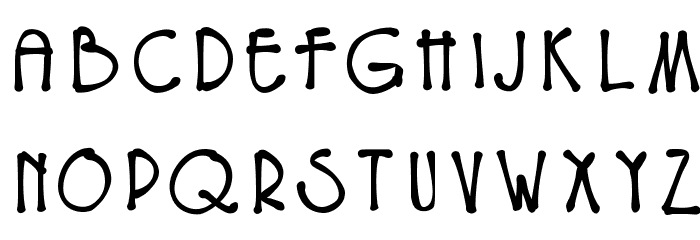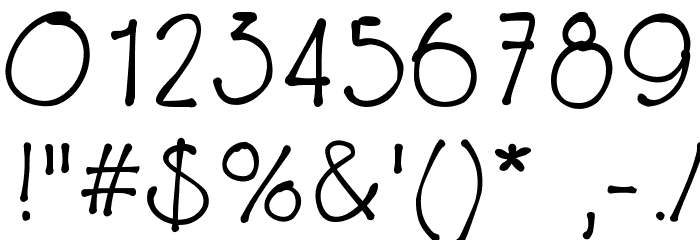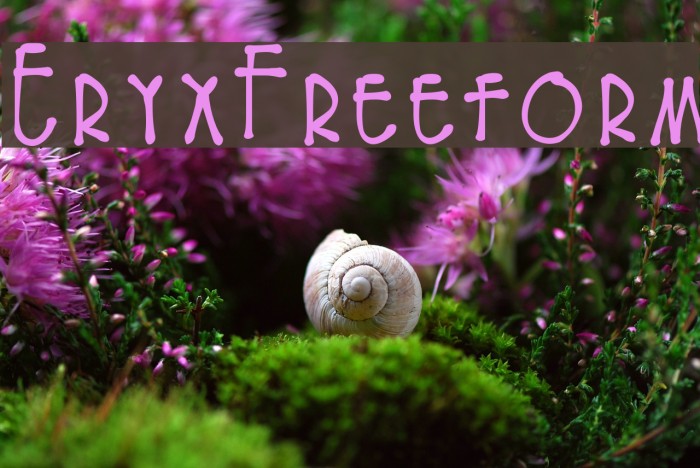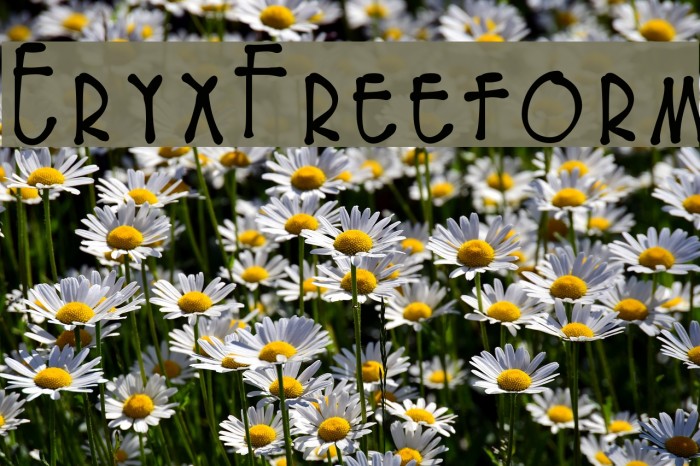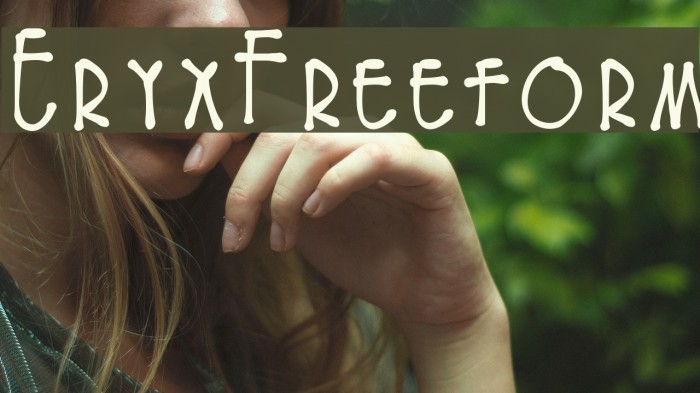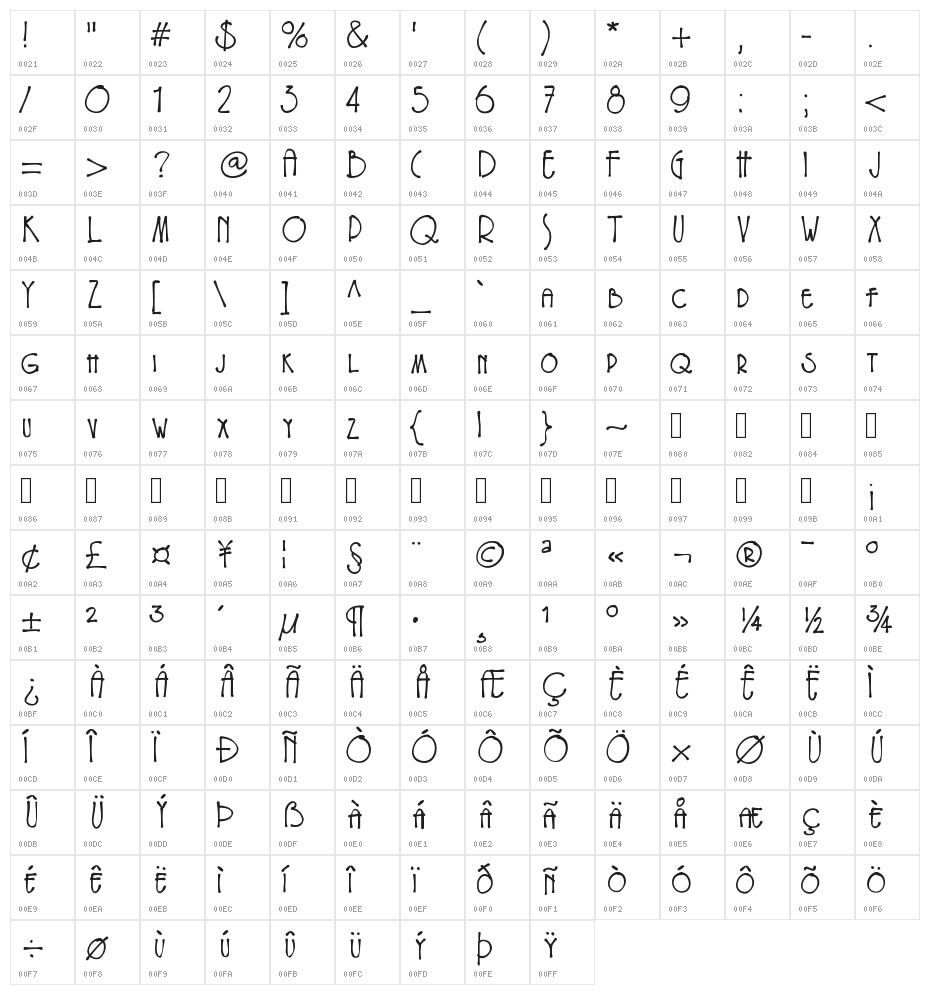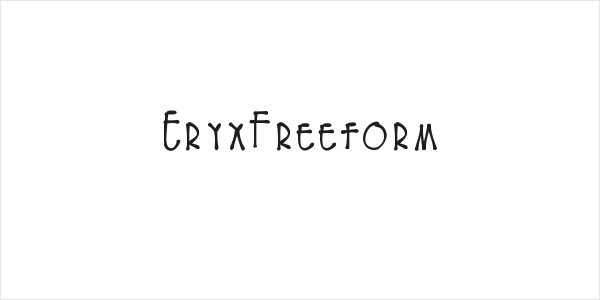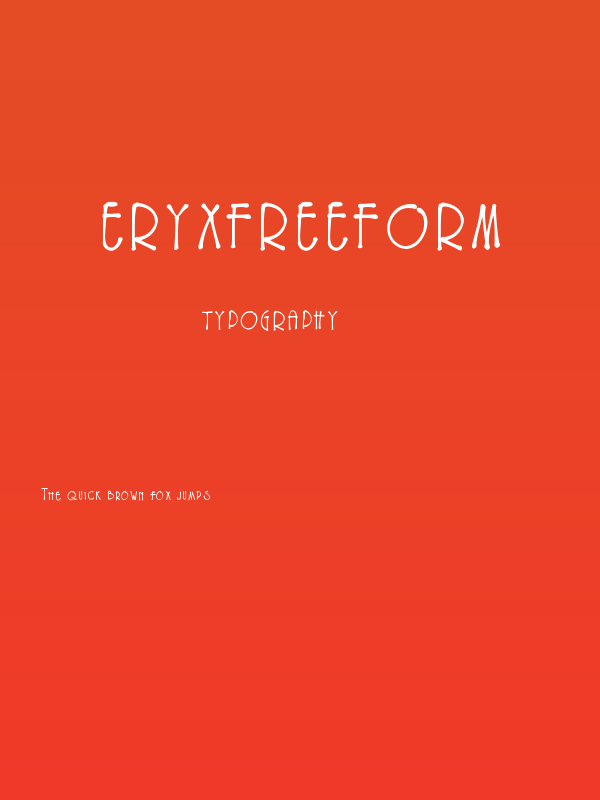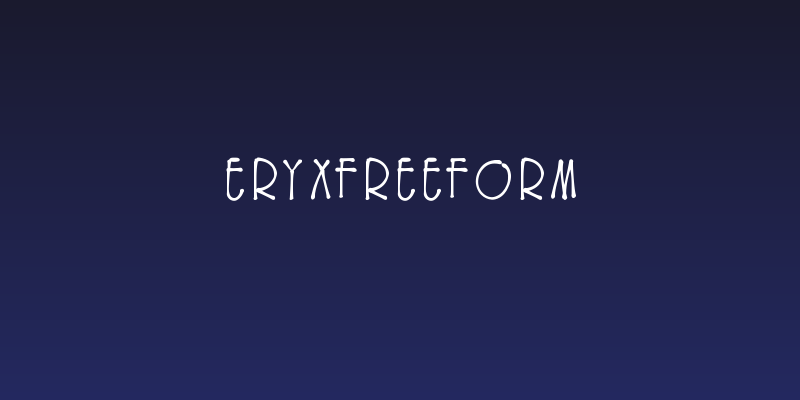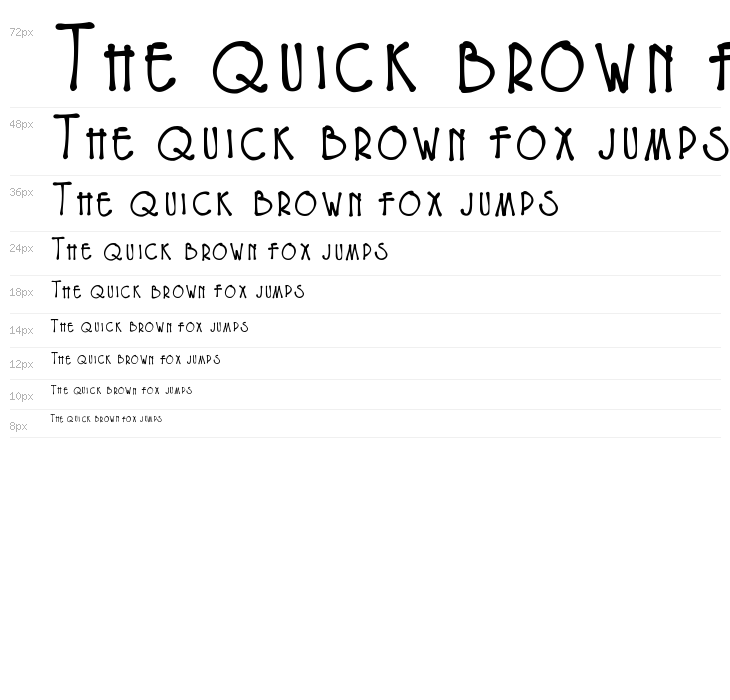
EryxFreeform Font
This font features a playful and freeform style, characterized by its hand-drawn appearance. The letters are irregular and slightly whimsical, with varying stroke thickness that gives it a lively and dynamic feel. The uppercase and lowercase letters maintain a consistent style, with rounded edges and a casual flow. Numbers and special characters are designed to match the overall aesthetic, adding to its cohesive look. This font exudes a sense of creativity and spontaneity, making it ideal for projects that require a personal touch.
A playful, hand-drawn font with a whimsical and dynamic style.
- Proposed Projects: Ideal for children's books, creative posters, casual branding, and artistic projects.